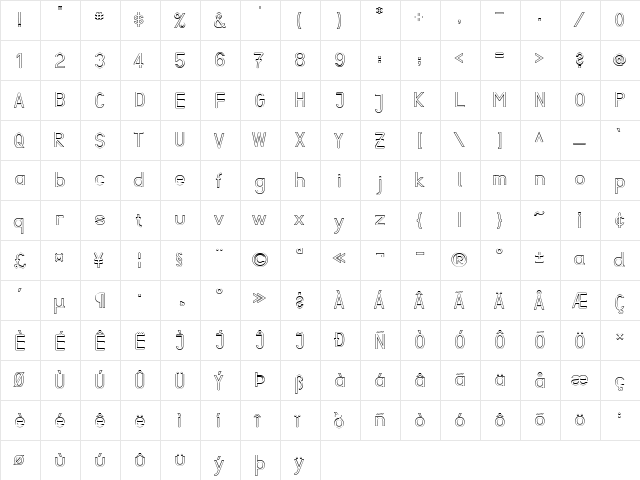
Fibel Sued Kontur Regular
| Foundry | Peter Wiegel |
| Designer | Peter Wiegel |
Design Context for Fibel Sued Kontur Typeface
Fibel Sued Kontur offers clean, dependable letterforms without strong stylistic allegiance, making it a practical choice for designers who need flexibility.